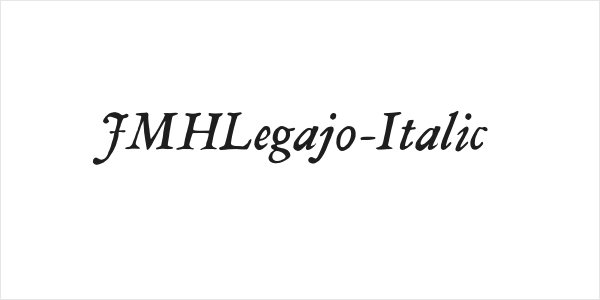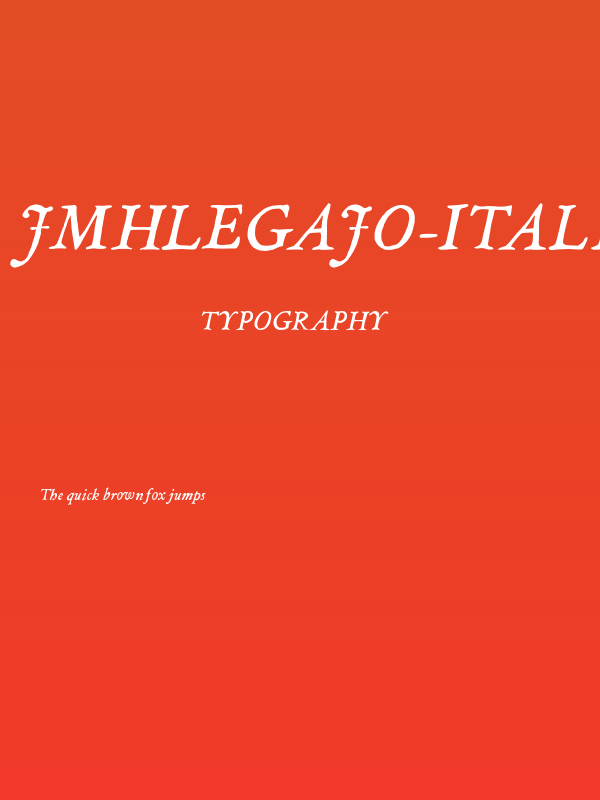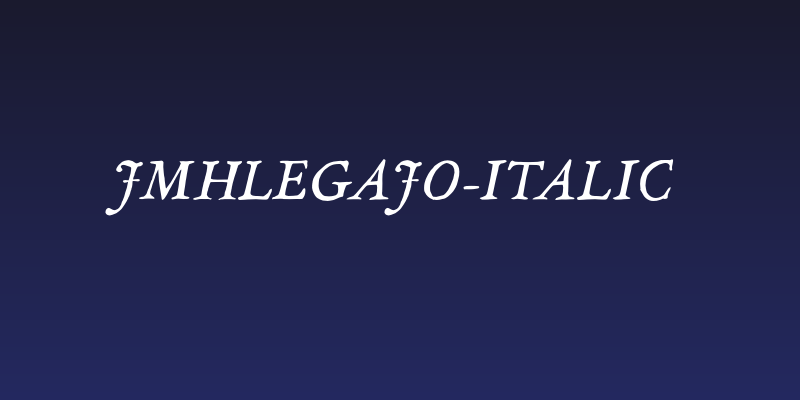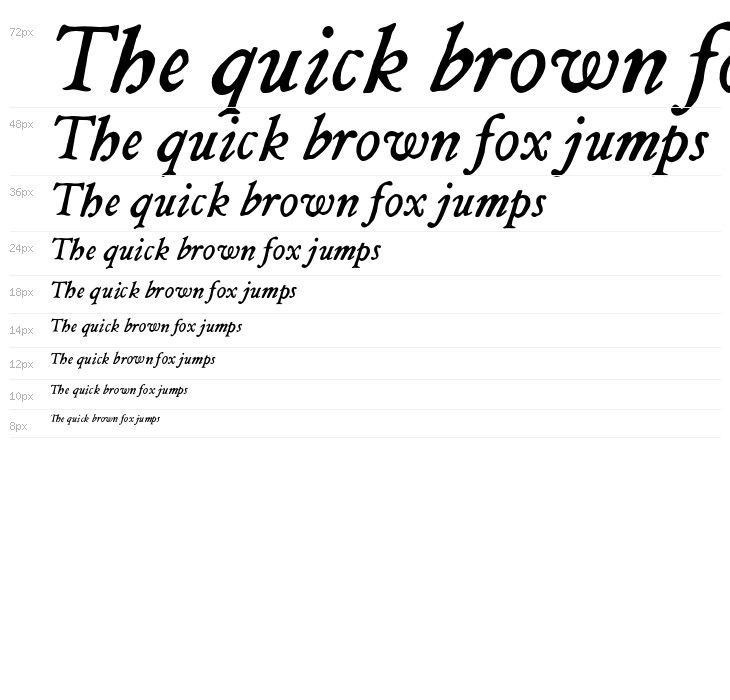
JMHLegajo-Italic Font
JMHLegajo-Italic Description
This font features an elegant and flowing italic style, characterized by its smooth curves and dynamic strokes. The uppercase letters exhibit a classic serif design with a slight slant, adding a sense of movement and sophistication. The lowercase letters are more pronounced with a bold appearance, maintaining the italicized form throughout. Numbers and special characters are crafted with the same attention to detail, ensuring consistency across all glyphs. The overall design exudes a sense of traditional elegance, making it suitable for formal and decorative applications.